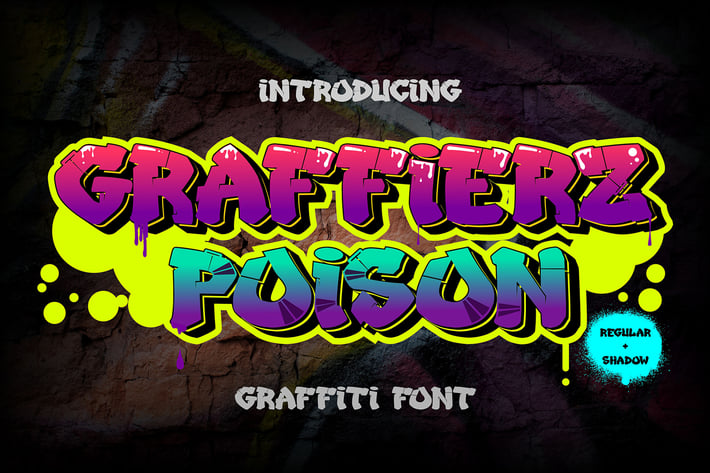
Graffierz Poison - Urban Graffiti Font
Get ready to take your designs to the next level with Graffierz Poison - the graffiti font that packs a punch. This font isn't just bold and daring, it's also got a sleek shadow effect that adds depth and dimension to your text. The sharp, angular lines and dripping paint effect create an authentic street art feel, while the shadow effect gives it a modern and dynamic twist. Whether you're designing a poster, logo, or anything in between, Graffierz Poison with shadow effect is the font that will make your message stand out from the crowd. So why settle for ordinary typography when you can elevate your designs with the power of Graffierz Poison and its eye-catching shadow effect?